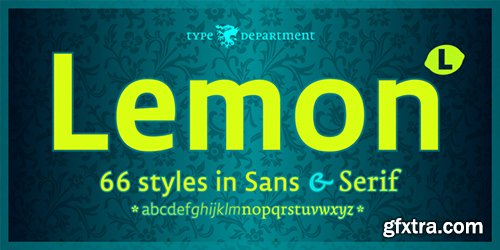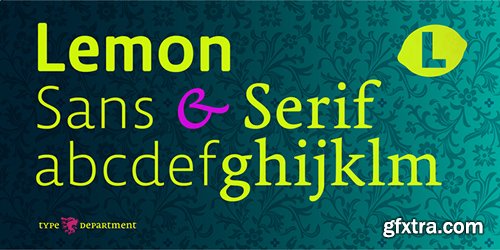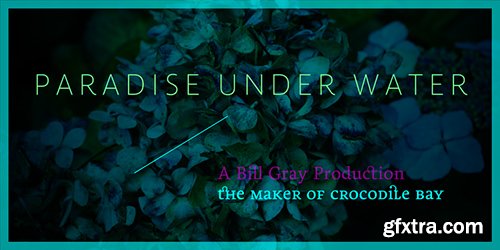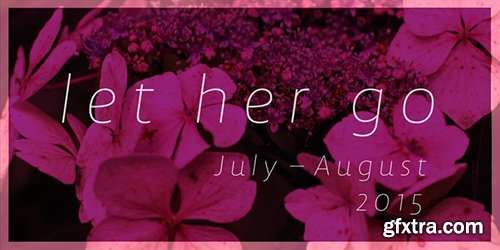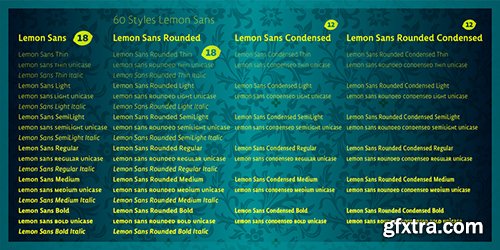
Lemon Sans Font - 60 Fonts $2016
- TD Lemon Sans is part of the Lemon Sans family—an extensive set of fonts to go with Lemon Serif. Its design does not stick too closely to the serif version but meets the particular needs of a modern display typeface.The Lemon Sans family comes in six weights: extra light, light, semi light, regular, medium and bold. Every of the six weights is available in a regular and a unicase character set plus their condensed versions. Finally all these versions are available rounded which increases the number of weights to a total of 60.